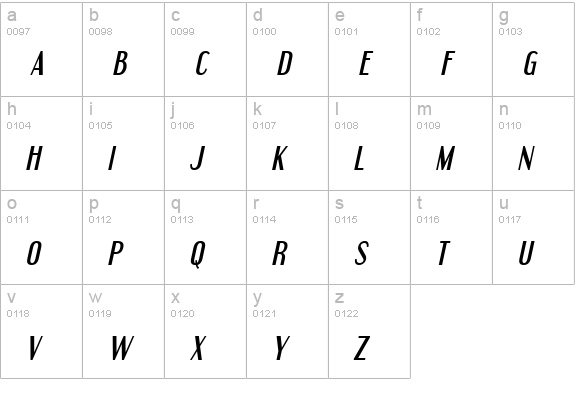
Engebrechtre Italic is a distinctive, italic variant in the Engebrechtre typeface family \xE2\x80\x94 well suited to design and typography projects.
Engebrechtre Italic font exudes elegance and sophistication with its timeless design and graceful curves. This versatile typeface strikes the perfect balance between traditional charm and modern appeal, making it ideal for a wide range of design projects. Its slanted italic style adds a touch of flair and sophistication, making it a popular choice for invitations, branding, and editorial design. What sets Engebrechtre Italic font apart is not only its beauty but also its accessibility. This exquisite font is available for free download at FontsMarket.com, allowing designers and creatives to effortlessly incorporate its unique charm into their work. Whether you're working on a wedding invitation, a logo, or a magazine layout, Engebrechtre Italic font is sure to elevate your design with its timeless elegance. Download this stunning font today and add a touch of sophistication to your next project.